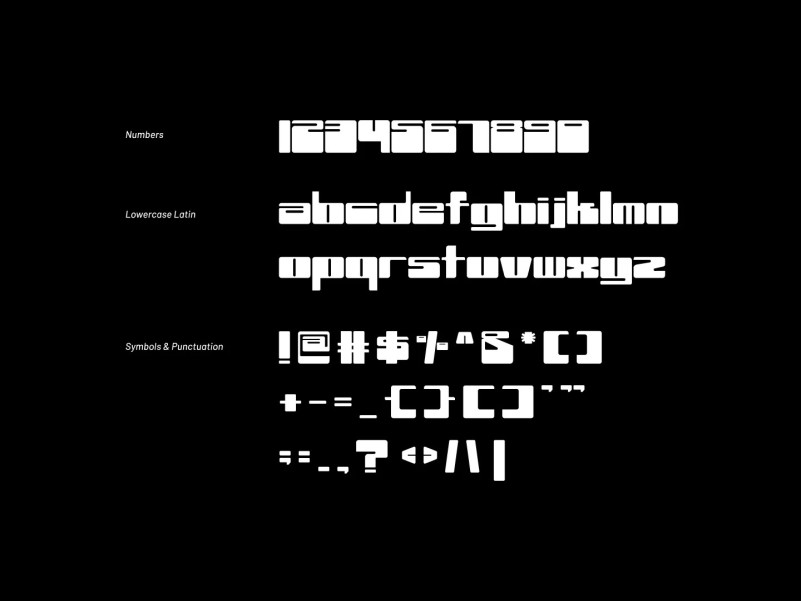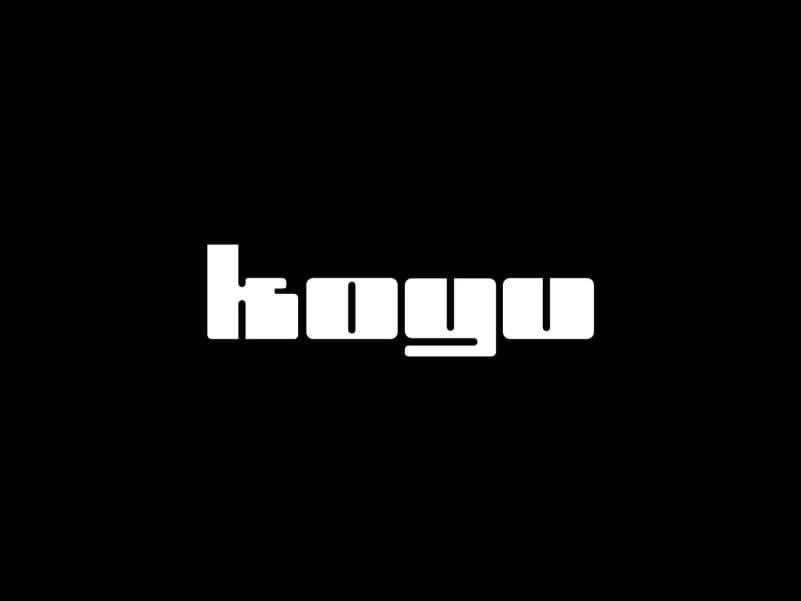
Koyu Font
Koyu Display Font is a variable display typeface from Noel Hoe that was inspired by graphic design from the 90s. The typeface is a mixture of all existing font families, hence featuring a peculiar look in terms of the letterform shaping and spacing of the typeface. Koyu includes 26 letters of the Latin alphabet, 10 numbers, 31 symbols & punctuations.